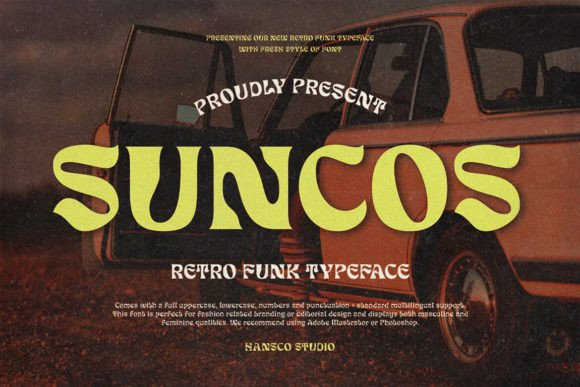
Introducing Suncos Font, the ultimate choice for all your creative design projects! Crafted by the talented HansCo, this retro funk font is here to elevate your artwork to the next level. Get ready to embark on a journey of casual elegance and modern retro aesthetics with Suncos Font.
With its complete set of characters, including uppercase letters, lowercase letters, numbers, and punctuation marks, Suncos Font offers endless possibilities for your designs. Whether you're working on a logotype, packaging design, or Cricut project, this font has got you covered.
One of the key features that sets Suncos Font apart is its multi-lingual support. No matter which language you're working with, this font will adapt seamlessly, ensuring that your message reaches a global audience. Break barriers and connect with people from all corners of the world through the power of typography.
Unlock your creativity and let Suncos Font be your companion in the world of design. Its versatility allows it to shine in various applications, from eye-catching headlines to captivating brand identities. Spruce up your t-shirts or apparel with a touch of retro charm, or make your posters and magazines stand out in a crowd.
But it doesn't stop there. Suncos Font is your secret weapon for online success. Enhance your YouTube thumbnails, Instagram posts, and website designs with this captivating font. Catch the attention of your audience and leave a lasting impression that keeps them coming back for more.
Are you a fan of easy-to-use design platforms like Canva or Corjl? Suncos Font seamlessly integrates with these tools, making it a breeze to create stunning visuals for any occasion. Transform your creative vision into reality and watch as your designs come to life with this font.
Now, imagine the possibilities. Let your ideas run wild and see them come to life with the help of Suncos Font. It's time to add a touch of modern retro flair to your projects and make a statement that resonates with your audience. Download Suncos Font today and unlock a world of endless design possibilities.